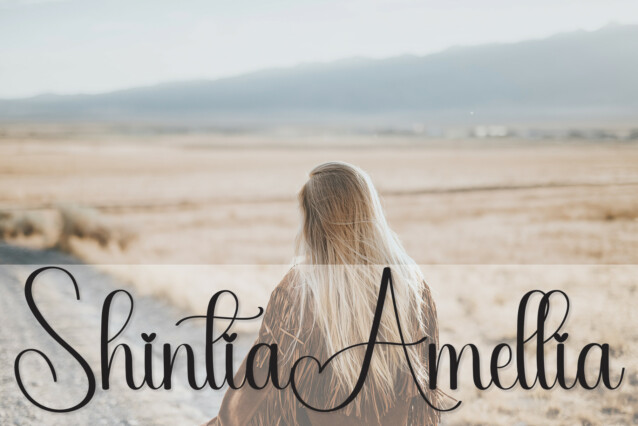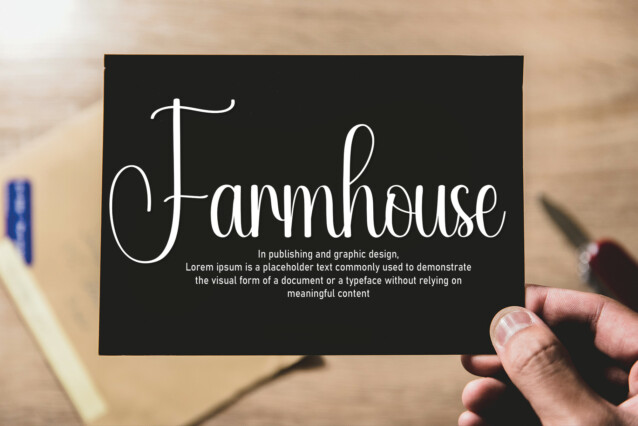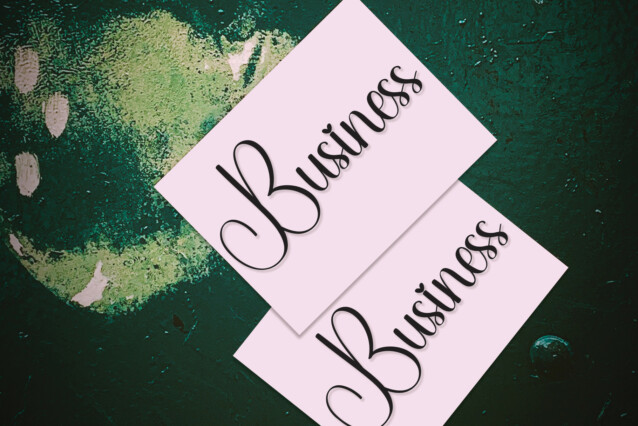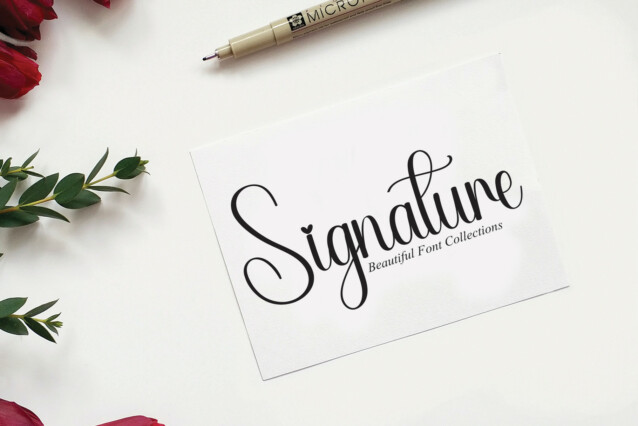
Midterm Script Font
Midterm Script Font is a delicate, elegant, and flowing handwritten font. It has beautiful and well-balanced characters and as a result, it matches a wide pool of designs.